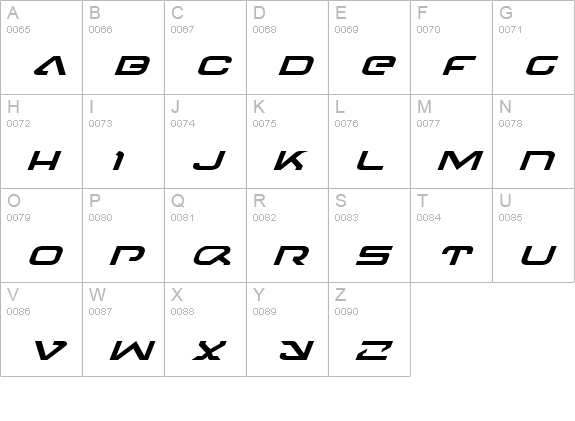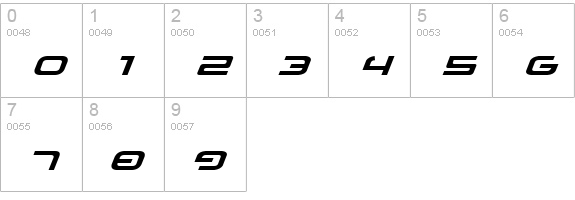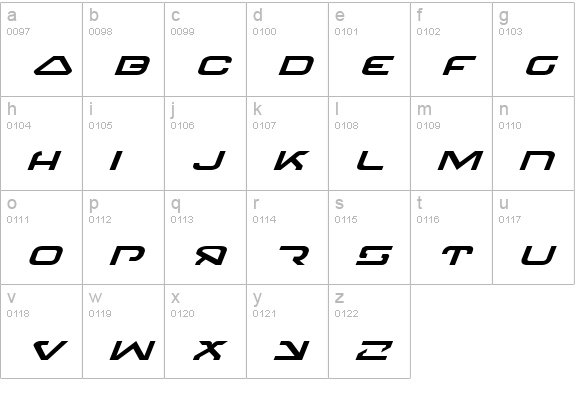
4114 Blaster Expanded Italic is a distinctive, extended-width, italic variant in the 4114 typeface family \xE2\x80\x94 well suited to design and typography projects.
The 4114 Blaster Expanded Italic font is a bold and dynamic typeface that exudes energy and modernity. With its sleek and stylish design, this font is perfect for projects that require a strong and impactful visual presence. The italicized characters add a sense of movement and fluidity, making this font ideal for expressing creativity and innovation. What's even better is that the 4114 Blaster Expanded Italic font is available for free download at FontsMarket.com. This means that you can easily access this striking font and incorporate it into your designs without any cost. Whether you're working on a branding project, advertising campaign, or any other creative endeavor, the 4114 Blaster Expanded Italic font is sure to make a bold statement and leave a lasting impression. Download it now and unleash your creativity with this stunning typeface.